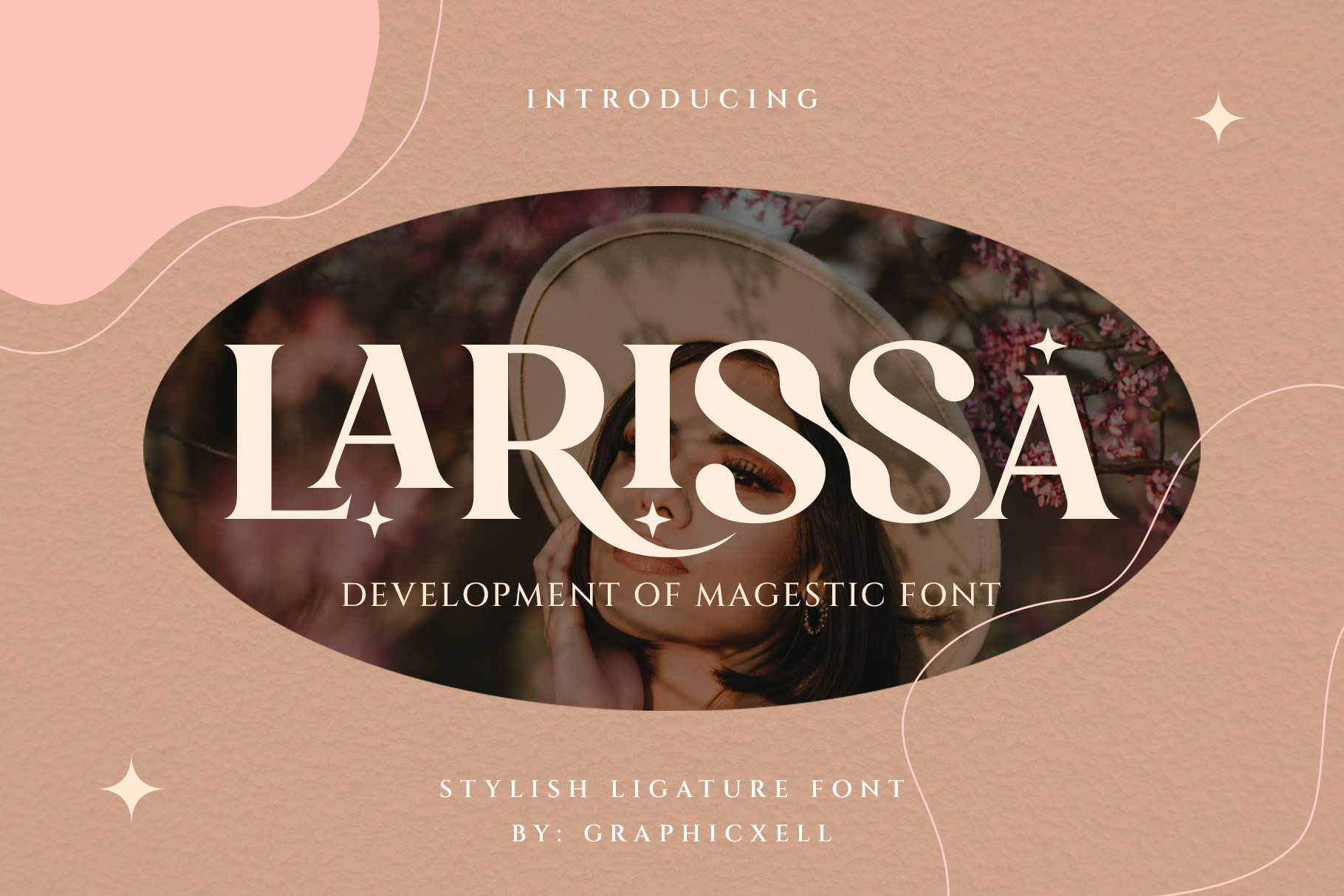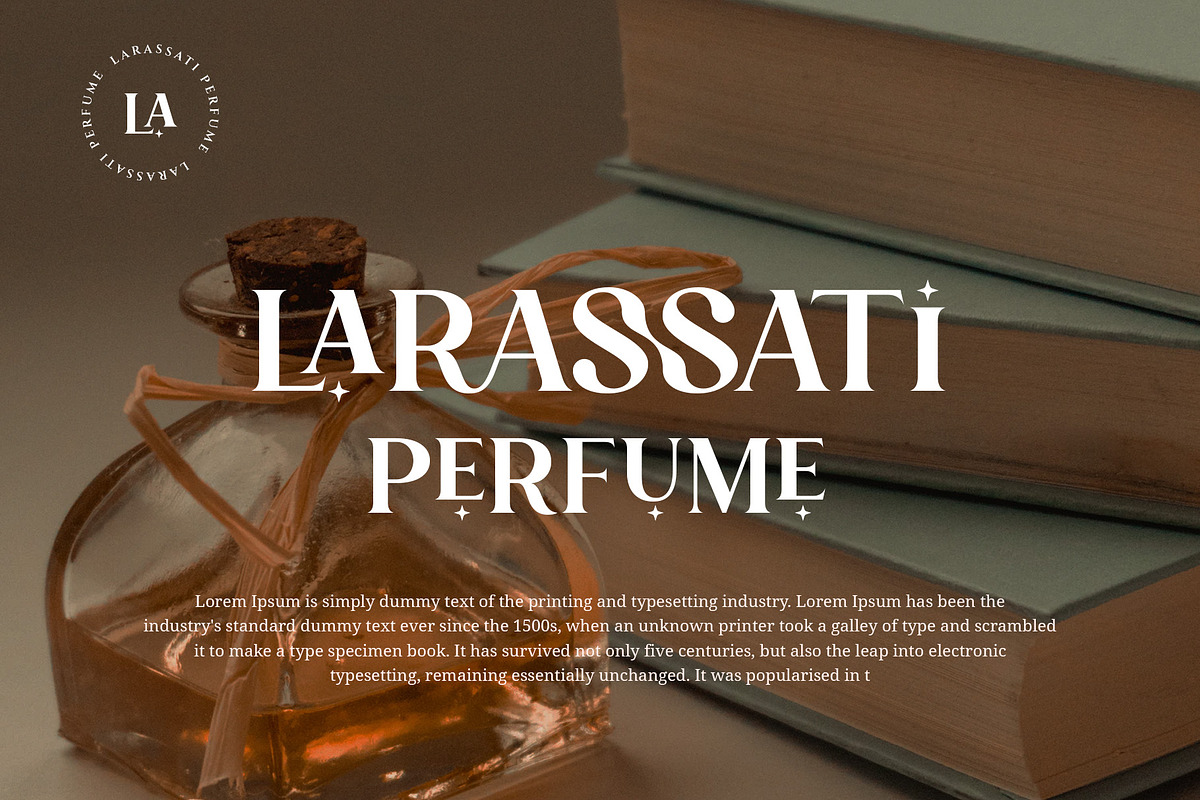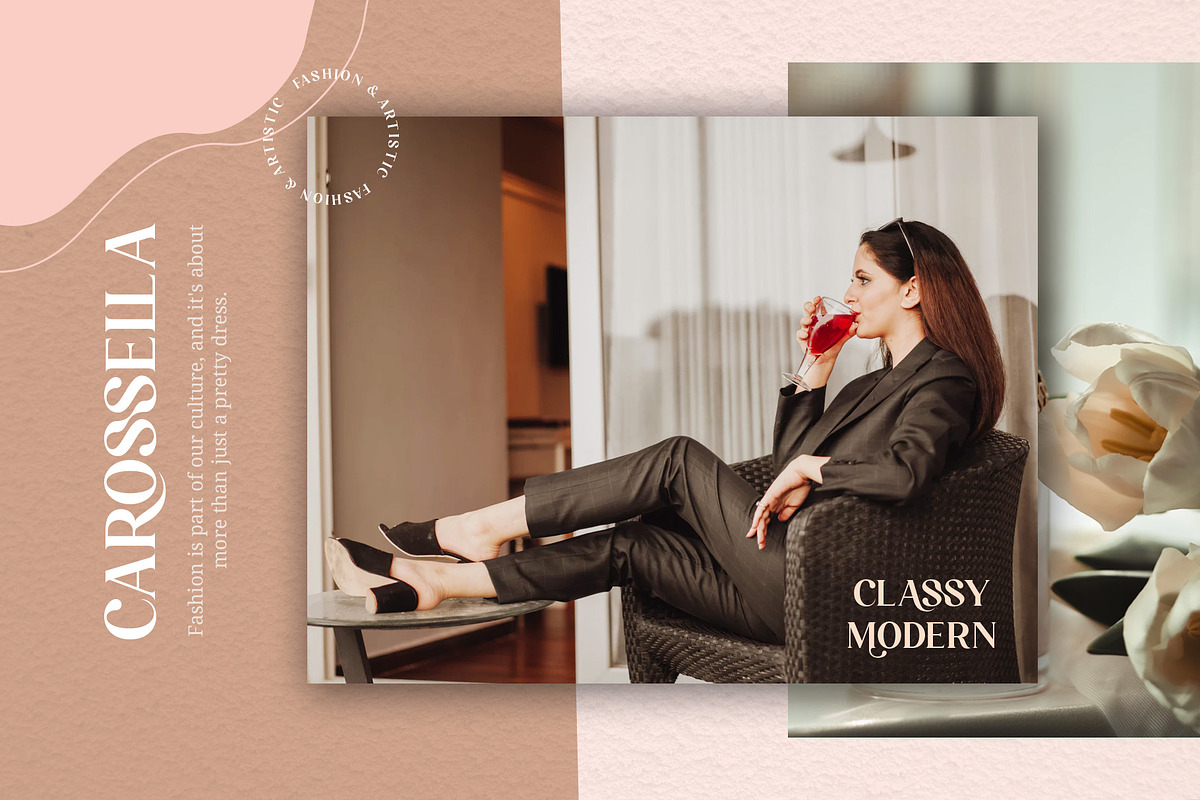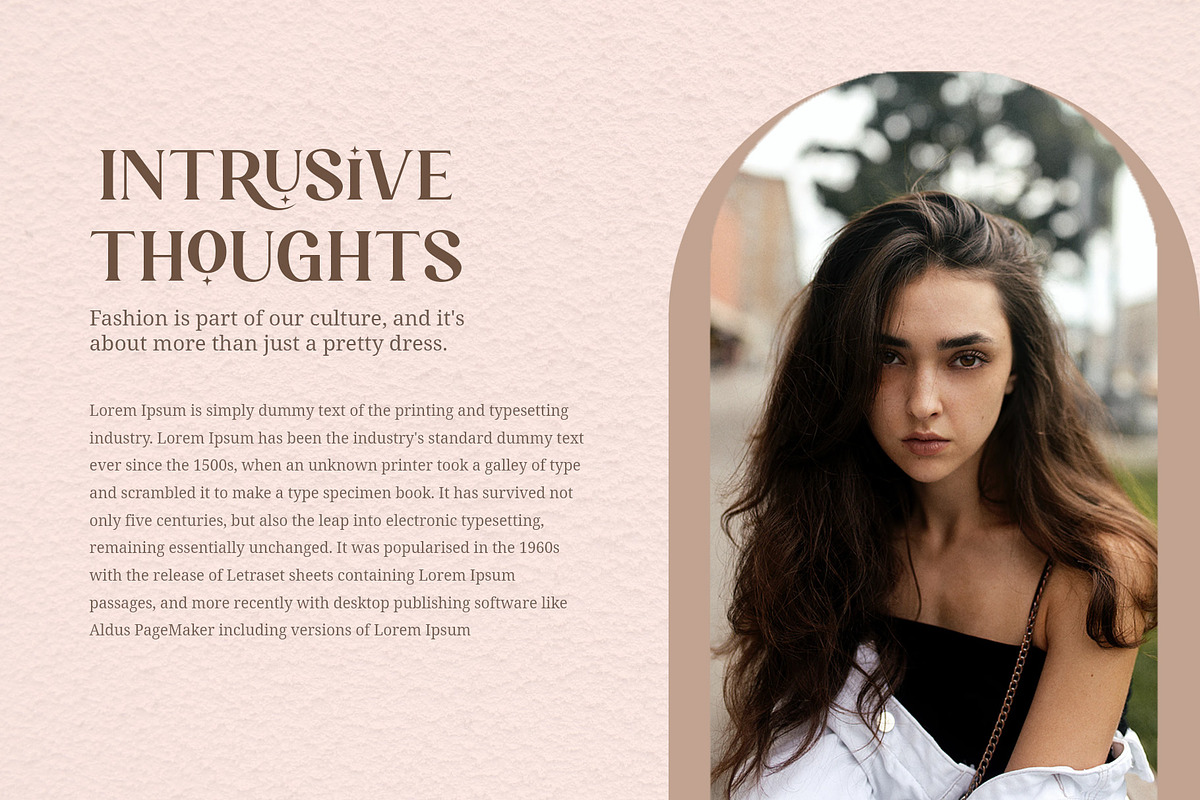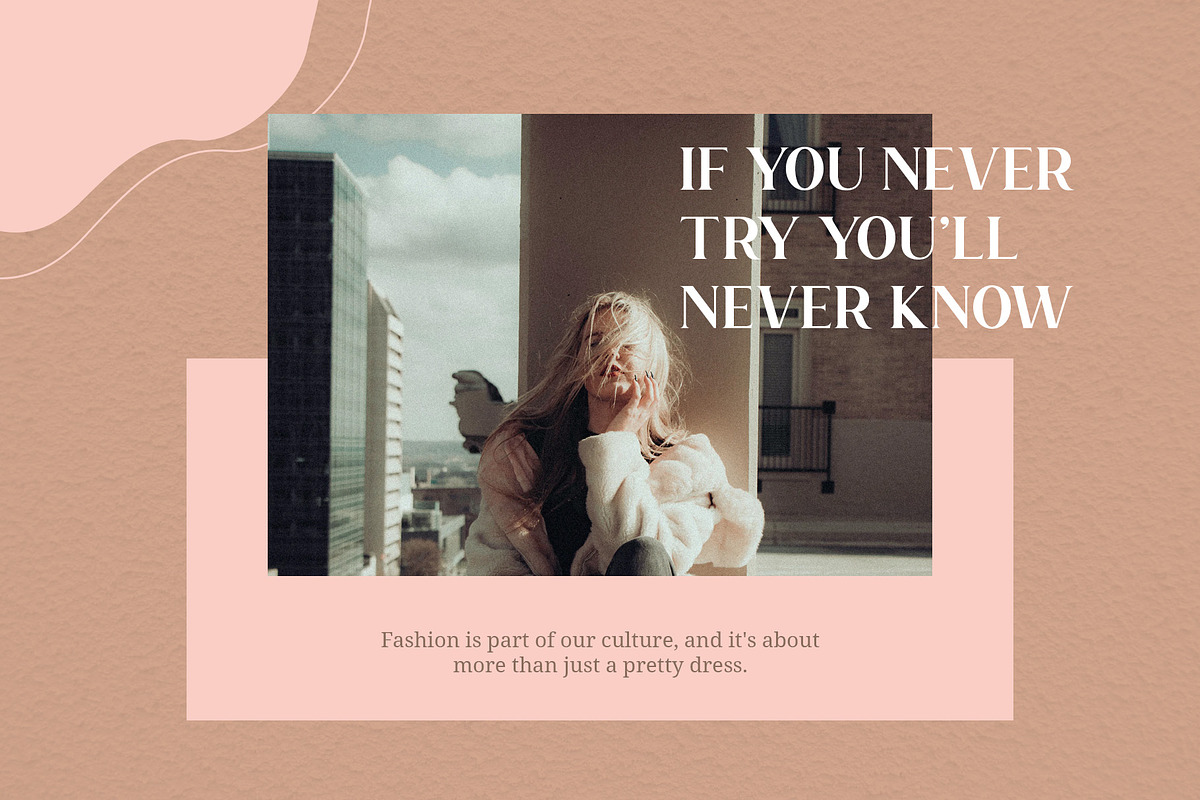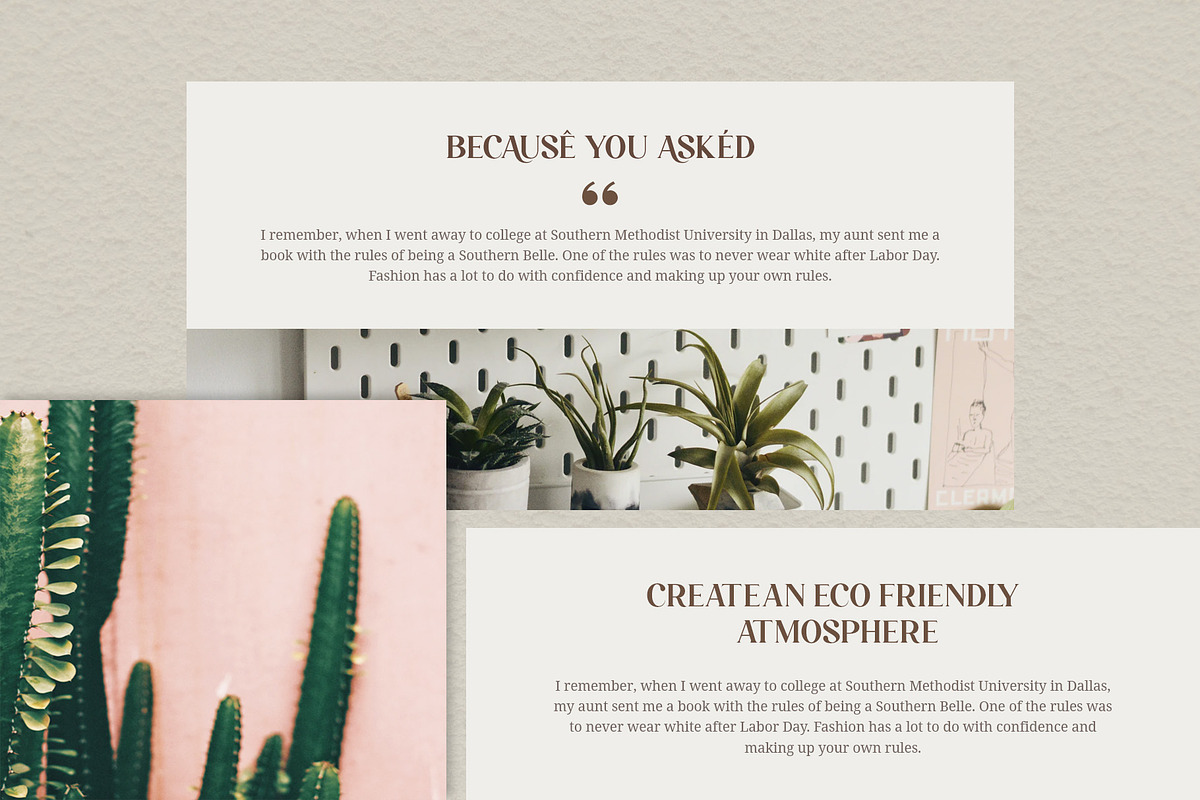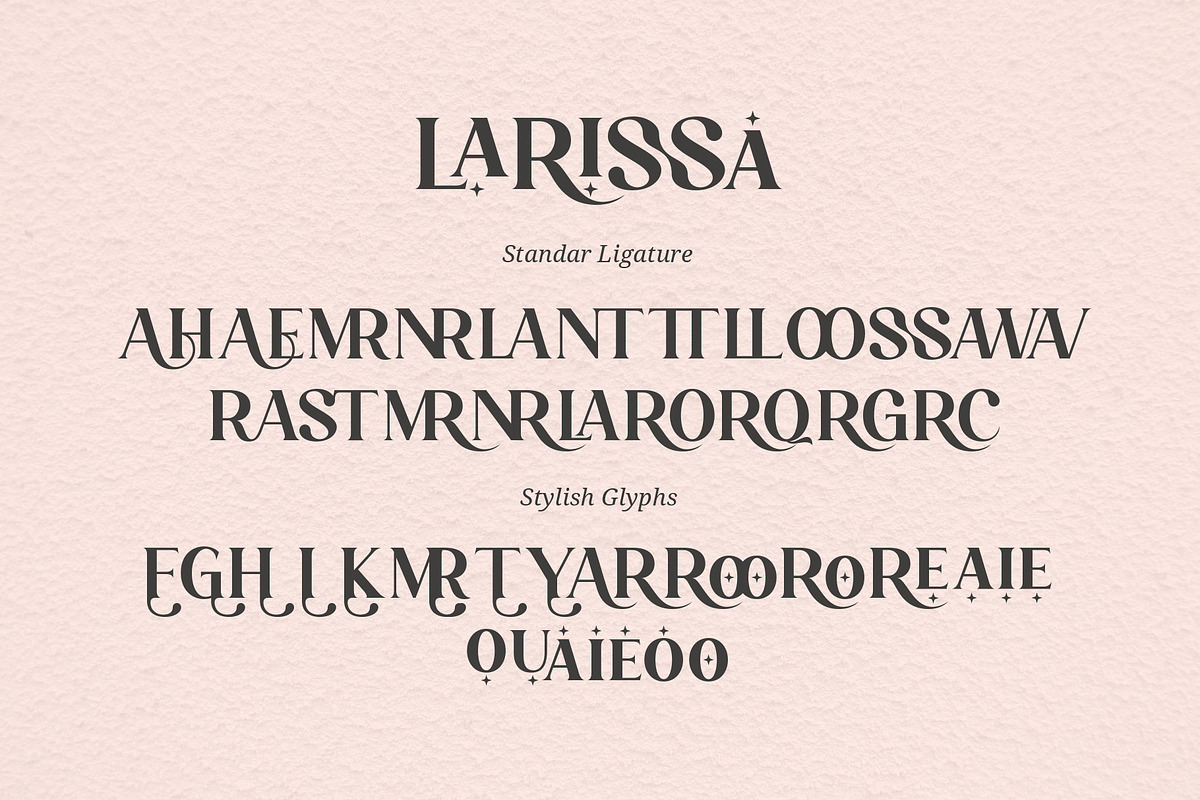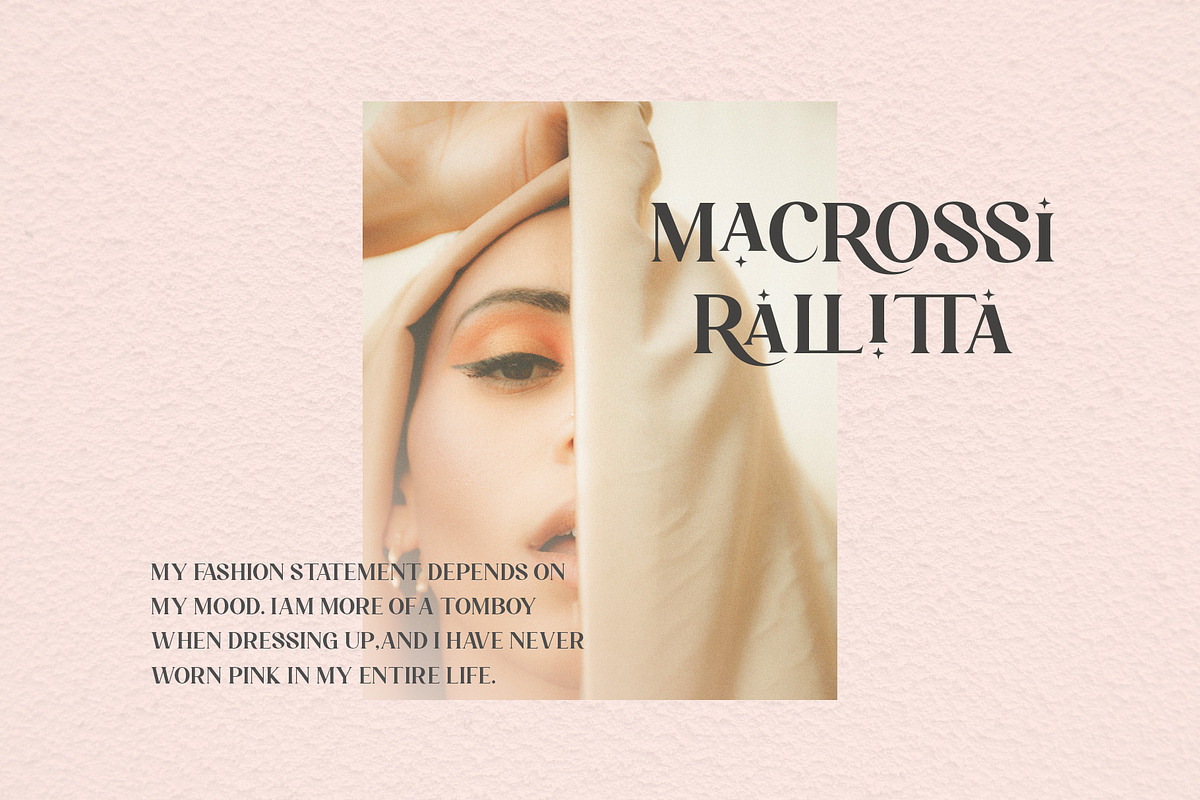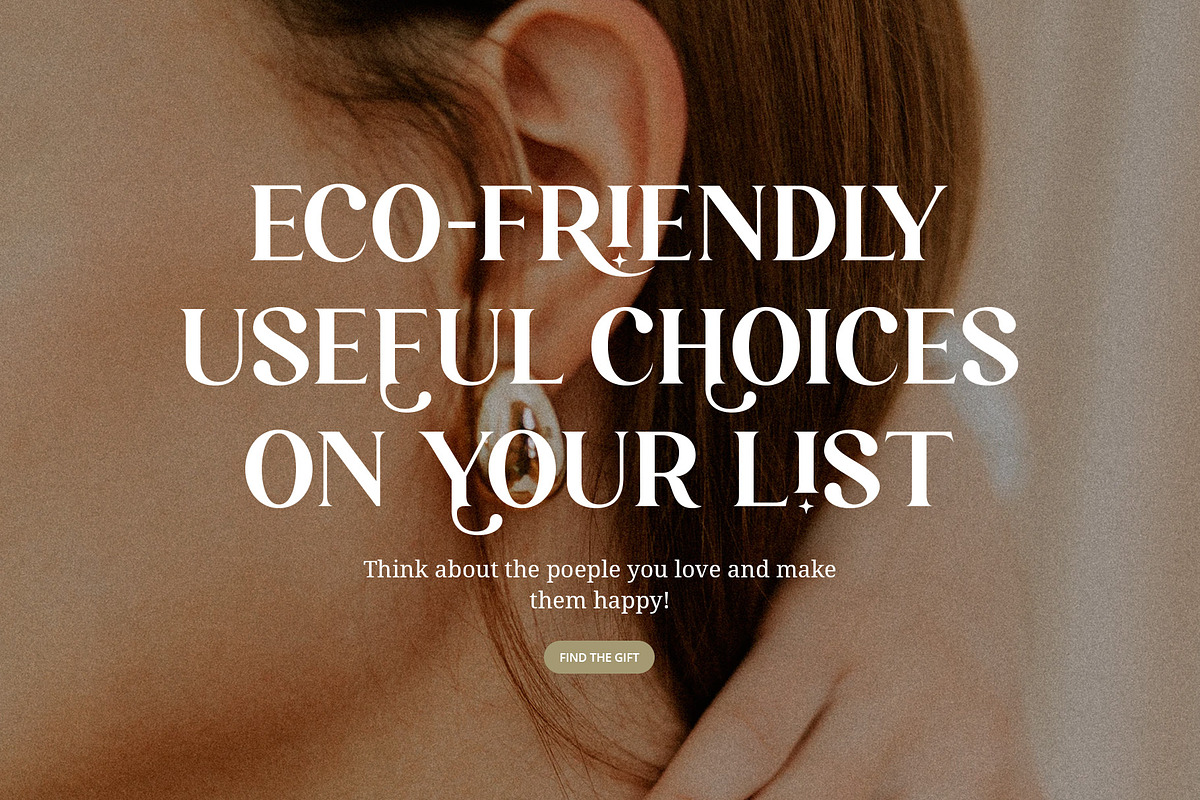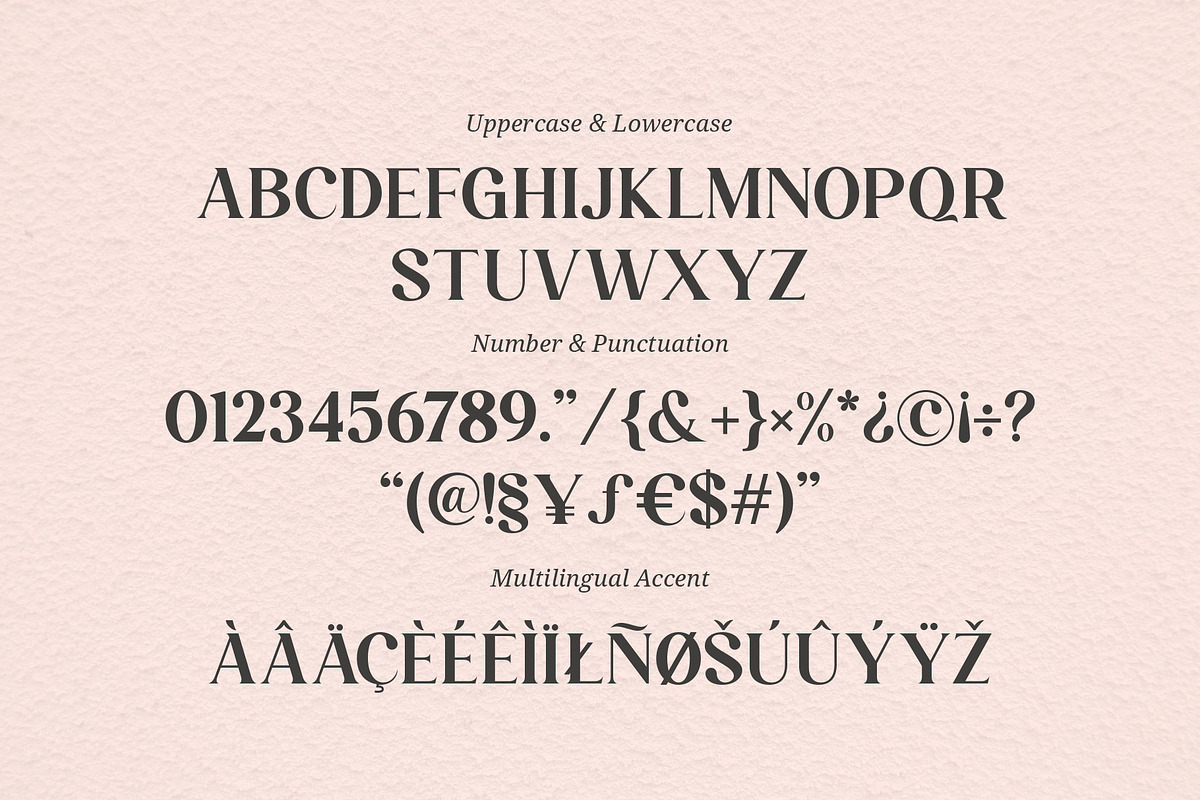
Larissa - Ligature Typeface
Larissa Stylish Ligature Typeface inspired by the famous minimalist logo perfect for the purposes of designing templates, brochures, videos, advertising branding, logos and more
Fonts include multilingual support